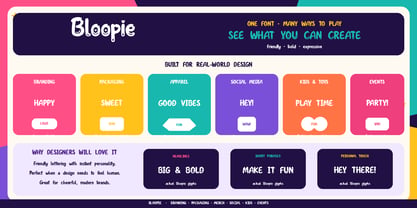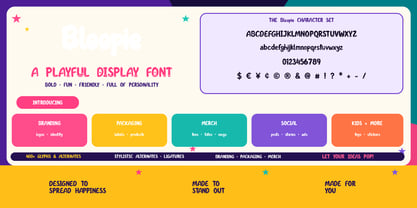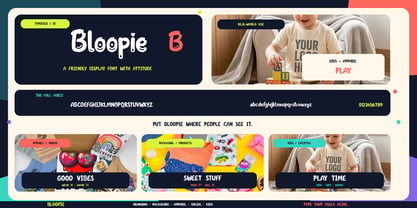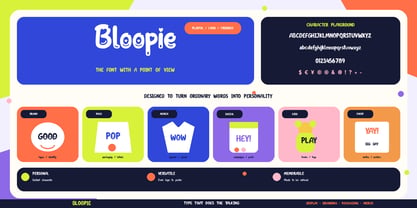
Bloopie
by Zefrar
Bloopie is a bold, playful display font designed to bring personality and energy to every word. With chunky, friendly letterforms, charming details, and a cheerful attitude, it’s perfect for branding, logos, packaging, posters, apparel, social media, invitations, kids’ products, stickers, and more. Bloopie is made to stand out, connect with audiences, and turn simple messages into memorable designs.